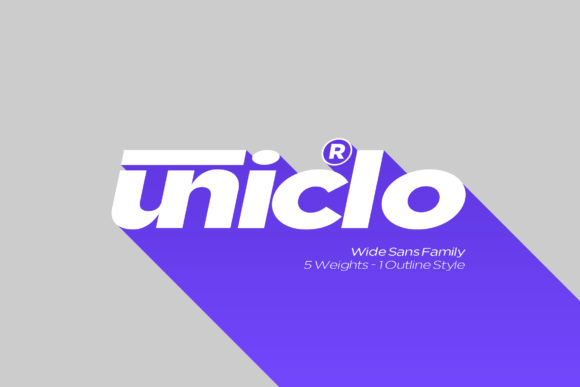
Unleash the power of visual eloquence with Uniclo, a sans serif font that embodies minimalism and sophistication. Its clean lines and airy presence evoke a sense of weightlessness, inviting readability and effortless style.
Crafted by the visionary designers at Maulana Creative, Uniclo emerges as a versatile typographic masterpiece. Its understated elegance lends itself flawlessly to a myriad of creative endeavors, seamlessly enhancing the impact of your digital creations.
With Uniclo as your font of choice, your website will radiate an aura of professionalism and contemporary chic. Its crisp characters dance across the screen, conveying your message with clarity and impact. Every word, every sentence, will captivate your audience, leaving them mesmerized by the understated brilliance of Uniclo.
But Uniclo's allure extends far beyond its aesthetic appeal. It's a font that sparks creativity, igniting a passion for design within you. Its versatility empowers you to experiment with different styles, explore fresh ideas, and push the boundaries of visual expression.
Whether you're crafting a striking logo, designing a user-friendly website, or creating captivating marketing materials, Uniclo stands ready as your steadfast typographic companion. Its adaptability knows no bounds, allowing it to elevate any project to new heights of sophistication and allure.